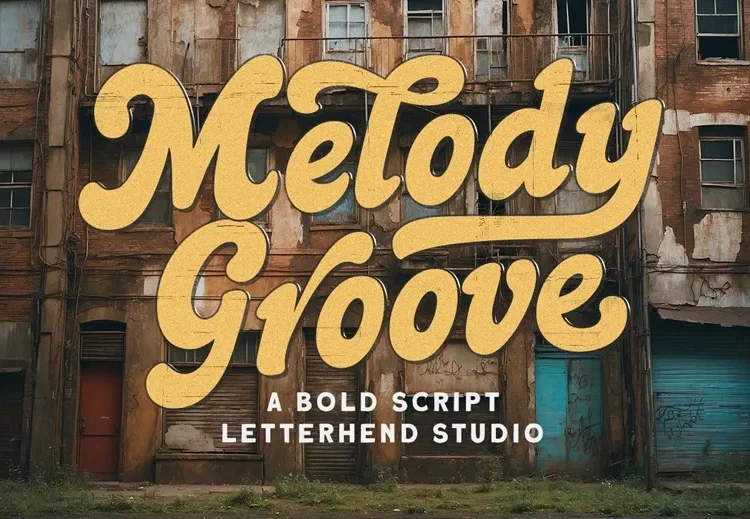
Melody Groove Font
Melody Groove is a bold, script-style font that blends a retro aesthetic with contemporary flair. Its unique sinuous lines and sculptural form create a striking design that evokes the nostalgic charm of an old-fashioned city atmosphere while remaining fresh and modern. This font is ideal for projects that require a standout, eye-catching style.
Perfect for posters, branding, packaging, invitations, and more, Melody Groove brings an old-school vibe with a bold, modern twist, making it a great choice for creative projects in need of character and personality.